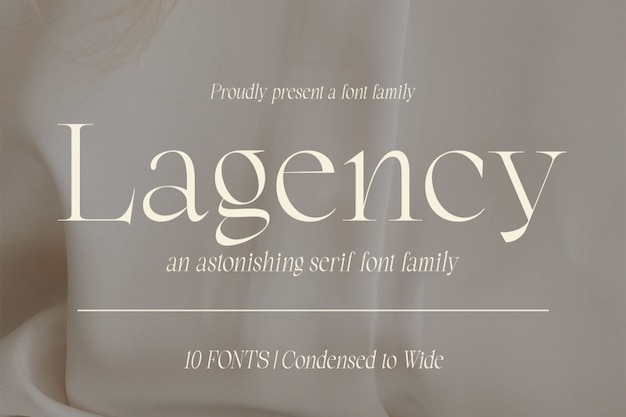
Lagency Font
It is a font that effortlessly combines modernity and elegance. Its sleek, minimalist design exudes sophistication and class. When used in your projects, it adds an astonishing touch that's bound to captivate your audience. Whether for branding, invitations, or digital media, "Lagency" sets a high standard of contemporary refinement that leaves a lasting impact.